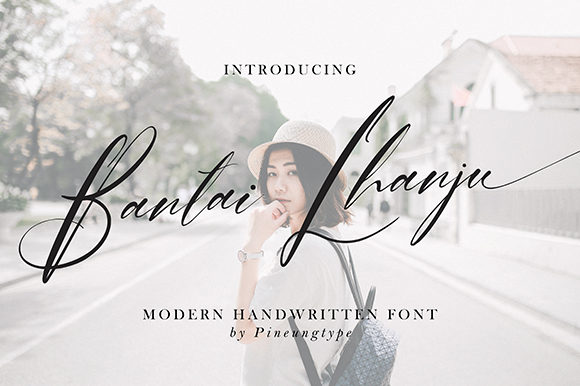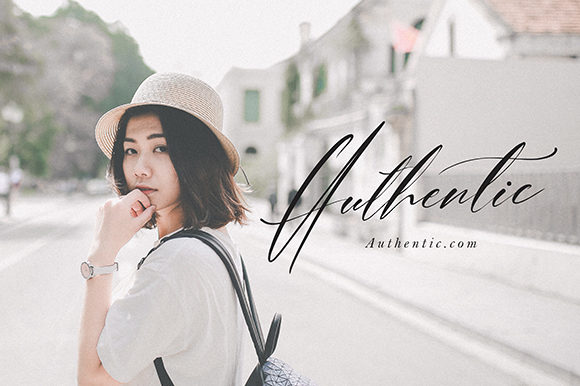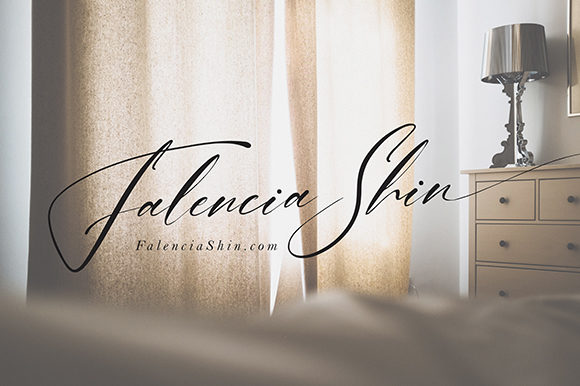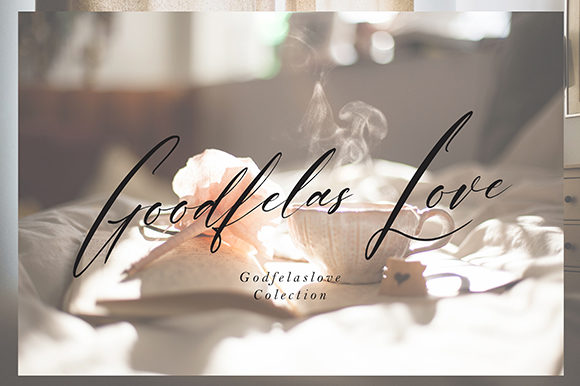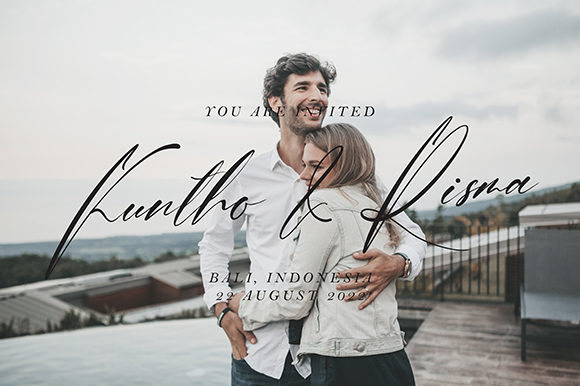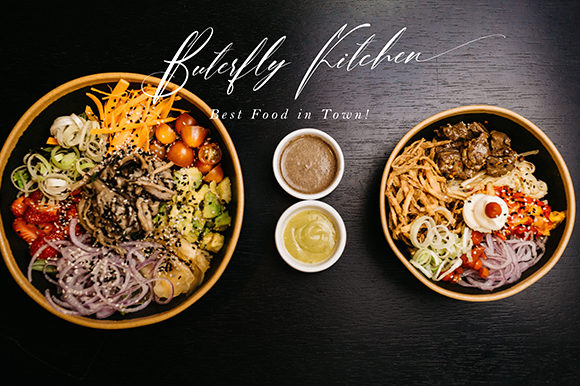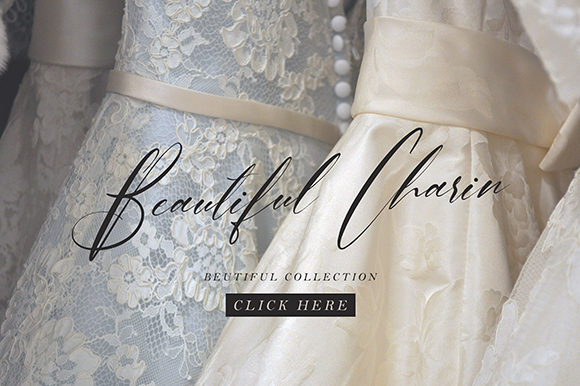
HomeScript FontsBantai Lhanju Font Script Fonts Bantai Lhanju Font FacebookXPinterestWhatsApp Bantai Lhanju Font Poster 2 Bantai Lhanju Font Poster 3 Bantai Lhanju Font Poster 4 Bantai Lhanju Font Poster 5 Bantai Lhanju Font Poster 6 Bantai Lhanju Font Poster 7 About Bantai Lhanju Font Bantai Lhanju is a beautiful and cool script font with a modern vibe. Get inspired by its authentic charm! DOWNLOAD ON CREATIVE FABRICAThis font is sold and delivered by Creative Fabrica. Font Canyon may earn a commission if you buy through this link. People also explored Blessed Font Astercla Love Girl Font Romalian Font Angel Devil Font Zambowa Font Right Mellody Font Crisis Font Marista Font 304 0 TagsBantai Lhanju Font Previous articleGreyfox FontNext articleFamilite Font LEAVE A REPLY Cancel reply Comment: Please enter your comment! Name:* Please enter your name here Email:* You have entered an incorrect email address! Please enter your email address here Website: Save my name, email, and website in this browser for the next time I comment. Personal Use Free Archipellago Personal Use Free Read more about this font Cheque Personal Use Free Read more about this font Mariyam Personal Use Free Read more about this font Rembank Personal Use Free Read more about this font BLOG Using Fonts in Digital Marketing: Tips to Strengthen Your Brand Identity In the realm of digital marketing, every visual element plays a crucial role in shaping a brand's identity, and fonts are no exception. The... Best Fonts for YouTube Videos: Make Your Thumbnails Stand Out Transform Your Website: Elevate Your Typography with 7 Best Web Font Generators Free Fonts Risk: Why Free Fonts Can Be Dangerous for Designers